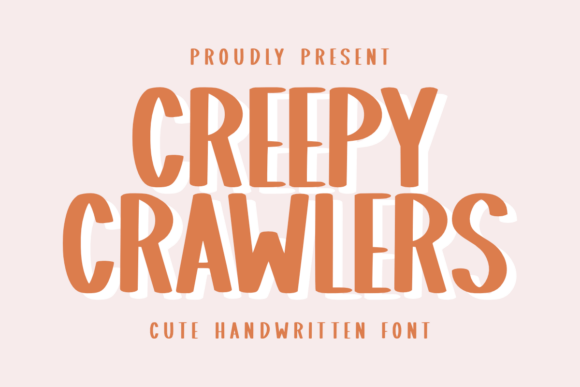
Creepy Crawlers Font: The Perfect Choice for Whimsical and Playful Designs
When it comes to creating engaging and eye-catching designs, the right font can make all the difference. If you’re looking for a font that exudes a quirky, friendly vibe, look no further than Creepy Crawlers. Despite its spooky-sounding name, this tall, narrow handwritten font is perfect for a wide range of projects, from Halloween-themed designs to kids’ branding and playful packaging.
What is Creepy Crawlers Font?
Creepy Crawlers is a unique and charming handwritten font that is sure to capture the attention of your audience. Its tall, narrow letters give it a distinctive look that is both elegant and playful. The font’s quirky, friendly twist makes it perfect for designs that require a touch of whimsy and fun.
The Versatility of Creepy Crawlers
One of the best things about Creepy Crawlers is its versatility. Its clean lines and fun layout make it easy to pair with other designs, making it perfect for a wide range of projects. Whether you’re creating a Halloween-themed design, a kids’ brand, or playful packaging, Creepy Crawlers is sure to bring a charming vibe to your project.
Characteristics of Creepy Crawlers Font
So, what makes Creepy Crawlers font so special? Here are a few of its key characteristics:
- Tall and narrow letters: Creepy Crawlers’ letters are tall and narrow, giving the font a distinctive look that is both elegant and playful.
- Handwritten style: Creepy Crawlers is a handwritten font, which gives it a personal and friendly touch.
- Quirky and friendly twist: The font’s quirky, friendly twist makes it perfect for designs that require a touch of whimsy and fun.
- Clean lines and fun layout: Creepy Crawlers’ clean lines and fun layout make it easy to pair with other designs.
Use Cases for Creepy Crawlers Font
So, what can you use Creepy Crawlers font for? The possibilities are endless, but here are a few ideas to get you started:
- Halloween-themed designs: Despite its spooky-sounding name, Creepy Crawlers is perfect for Halloween-themed designs that require a touch of whimsy and fun.
- Kids’ branding: Creepy Crawlers is a great choice for kids’ branding, as its playful and friendly vibe is sure to appeal to children.
- Playful packaging: Creepy Crawlers is perfect for playful packaging designs that require a touch of whimsy and fun.
- Invitations and greeting cards: Creepy Crawlers is a great choice for invitations and greeting cards, as its friendly and playful vibe is sure to make your recipients smile.
Tips for Using Creepy Crawlers Font
Here are a few tips for using Creepy Crawlers font in your designs:
- Pair it with other fonts: Creepy Crawlers is easy to pair with other fonts, so don’t be afraid to experiment with different combinations.
- Use it in moderation: While Creepy Crawlers is a fun and playful font, it can be overwhelming if used too much. Use it in moderation to create a balanced design.
- Experiment with colors: Creepy Crawlers looks great in a variety of colors, so don’t be afraid to experiment with different color schemes.
In conclusion, Creepy Crawlers font is a unique and charming handwritten font that is perfect for a wide range of projects. Its quirky, friendly twist and clean lines make it easy to pair with other designs, making it perfect for Halloween-themed designs, kids’ branding, playful packaging, and more. Whether you’re a designer, a DIY enthusiast, or just someone who loves fonts, Creepy Crawlers is sure to bring a charming vibe to your project.
Creepy Crawlers Font: The Perfect Choice for Your Next Project